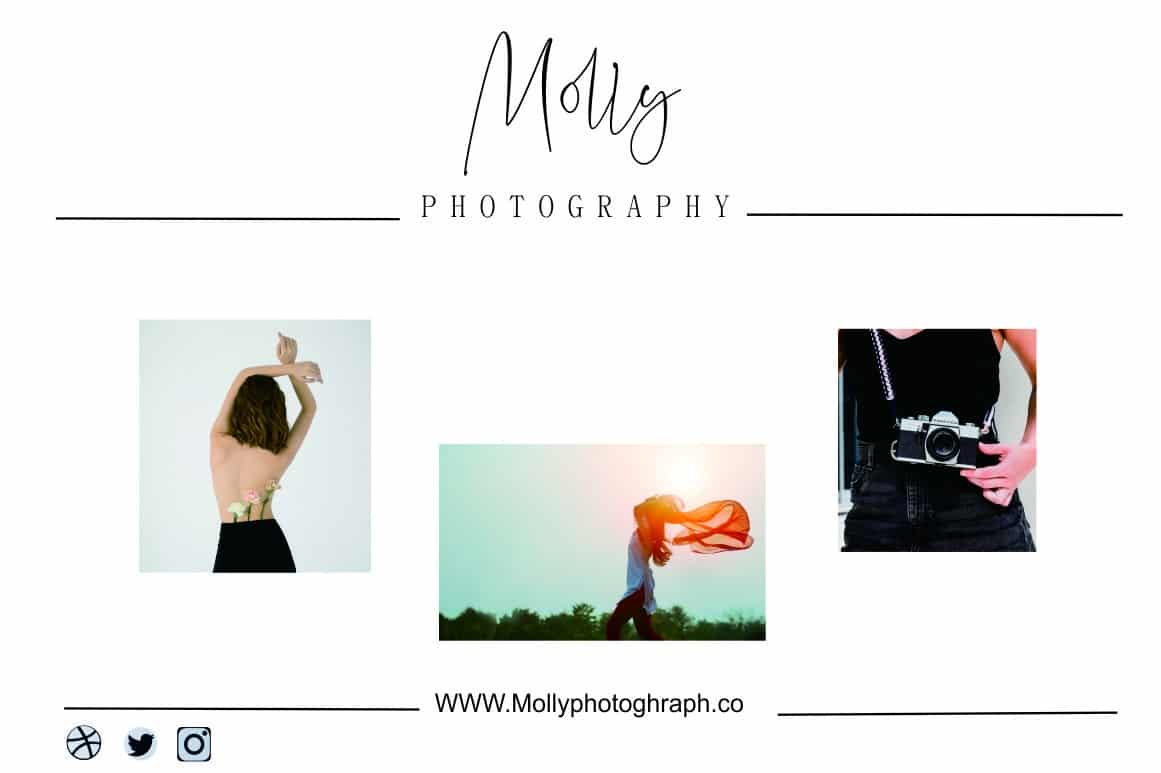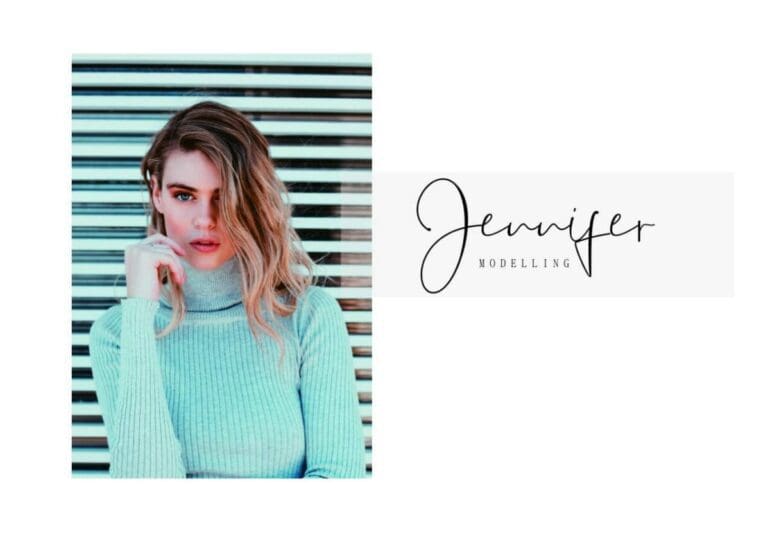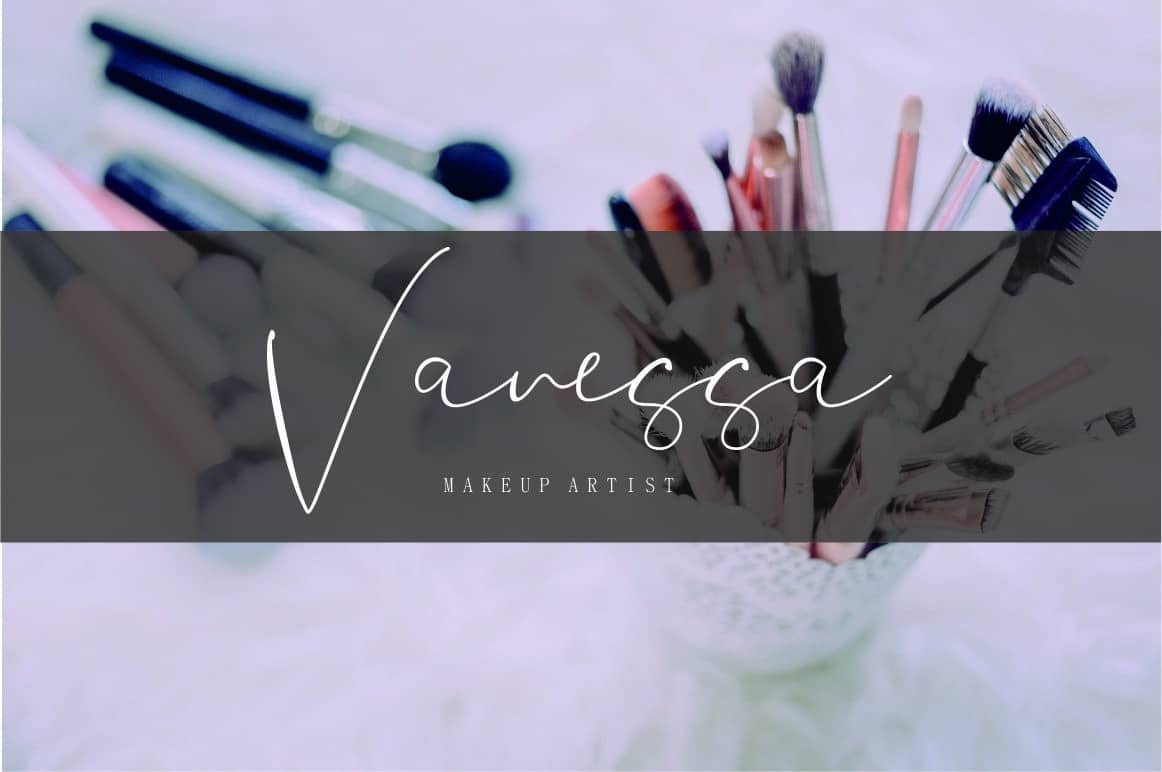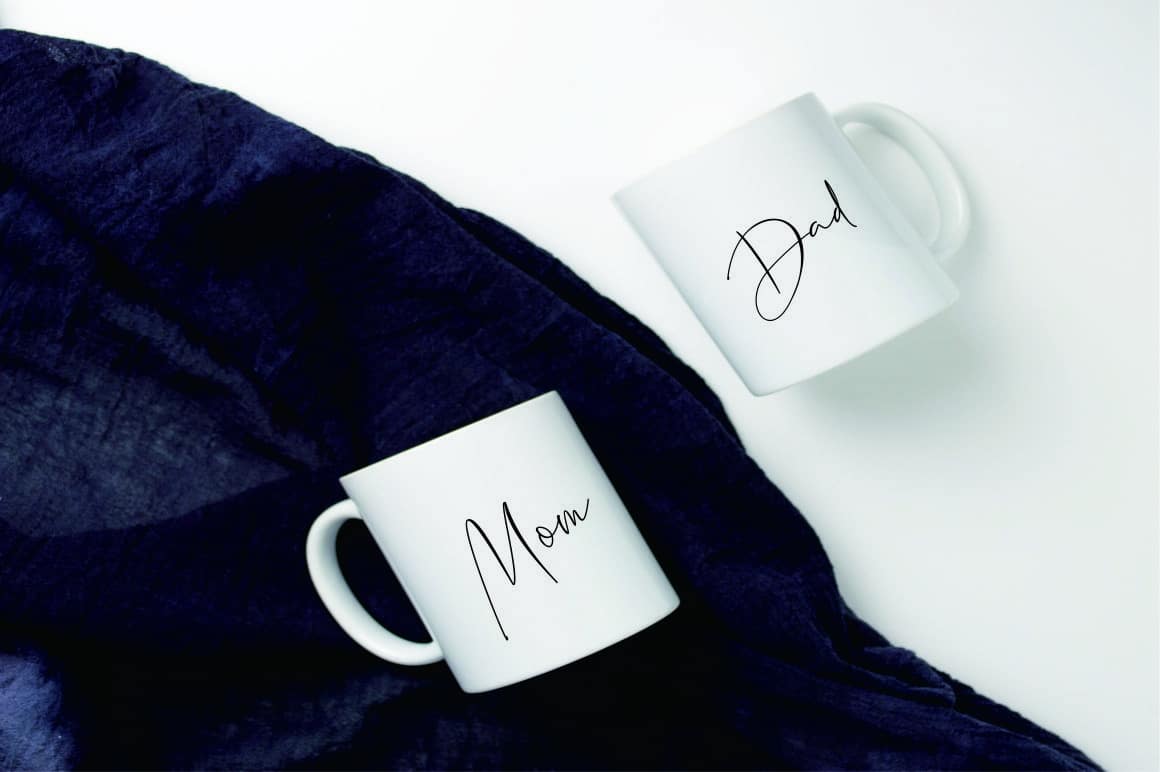
Jannet Font
Jannet Font is a new stylish display font. Its Perfect for logo, branding, tittle, social media posts, advertisements, product packaging, product designs, label, photography, watermark, special event, etc.